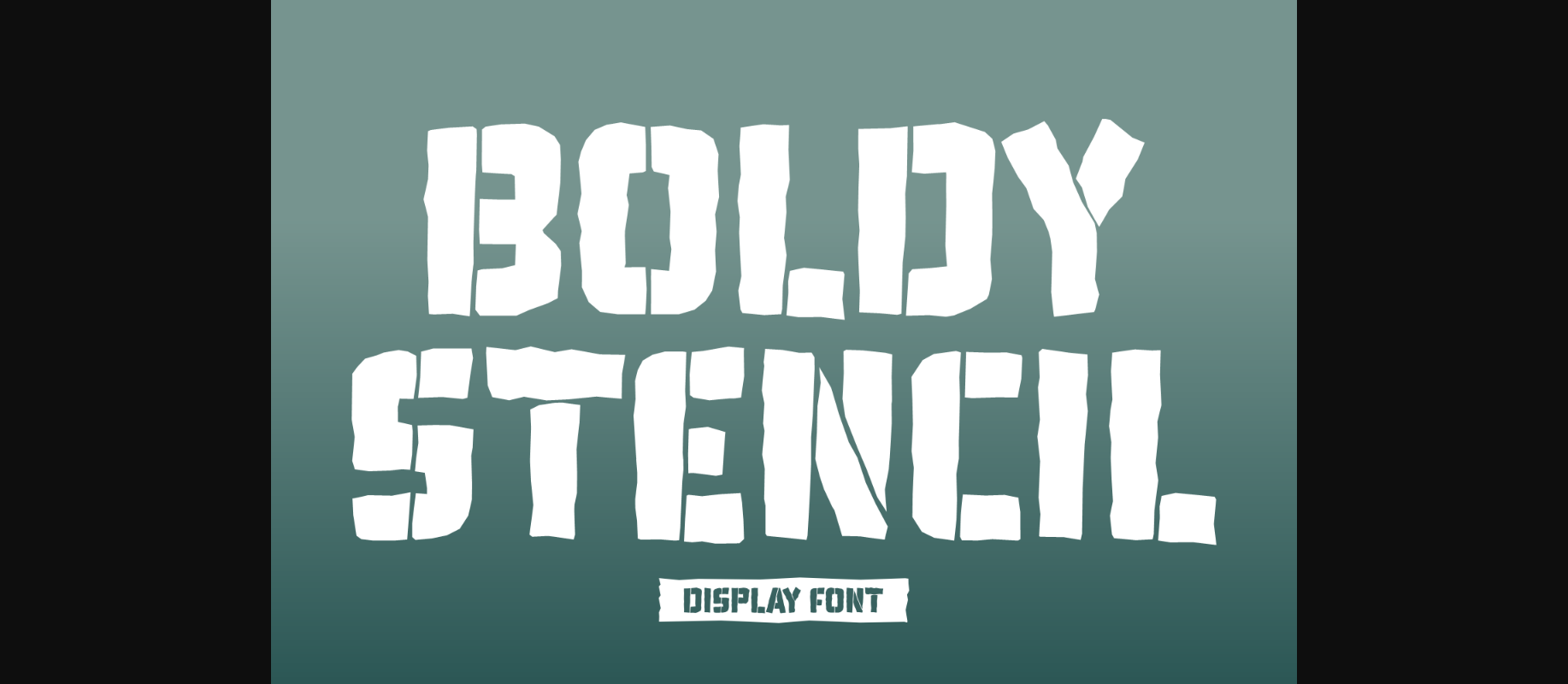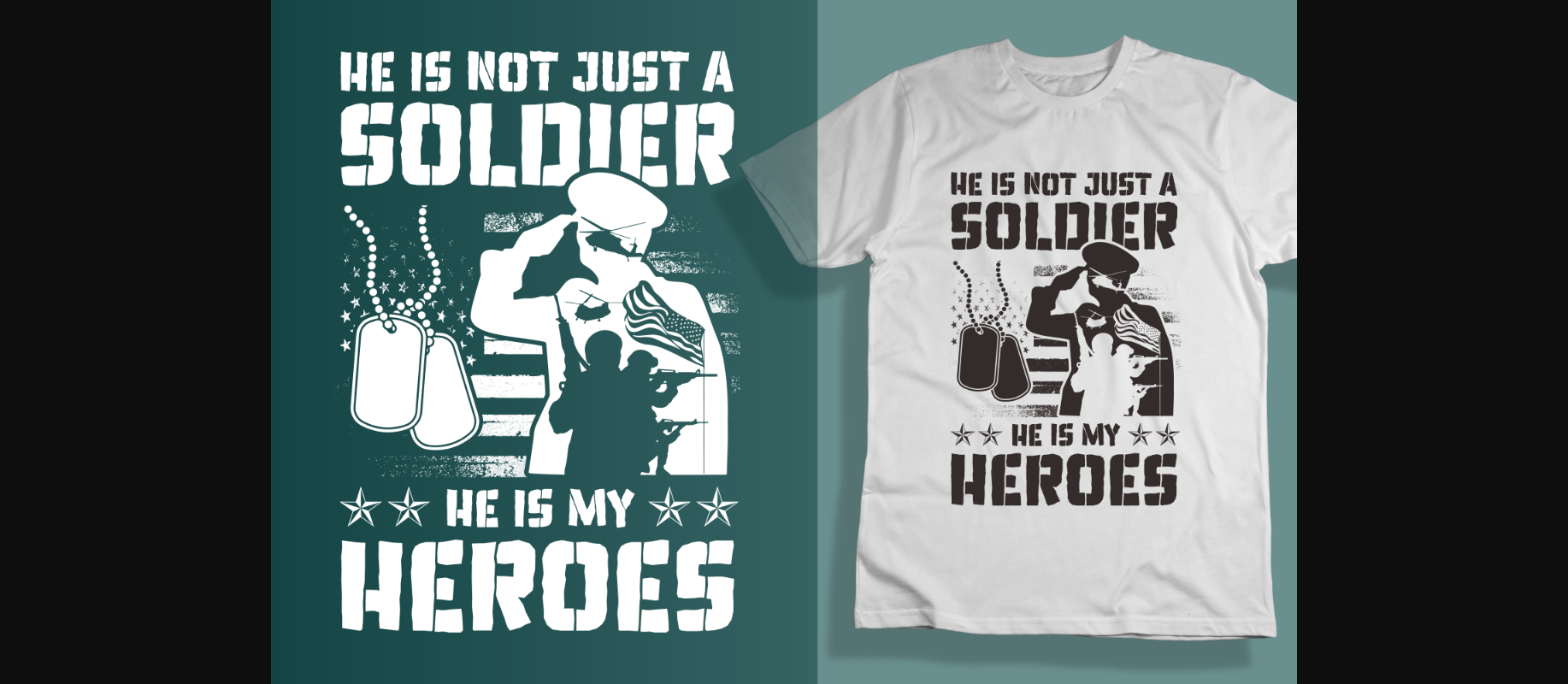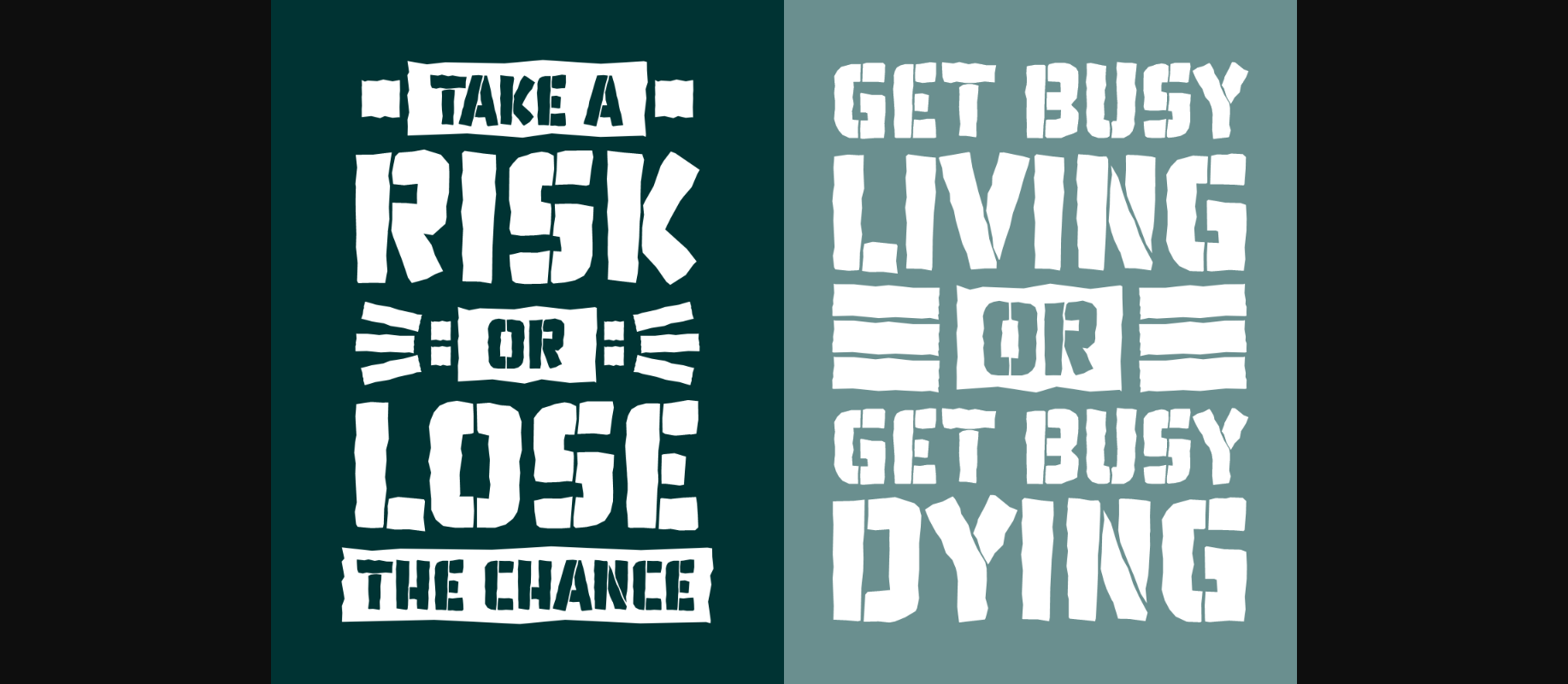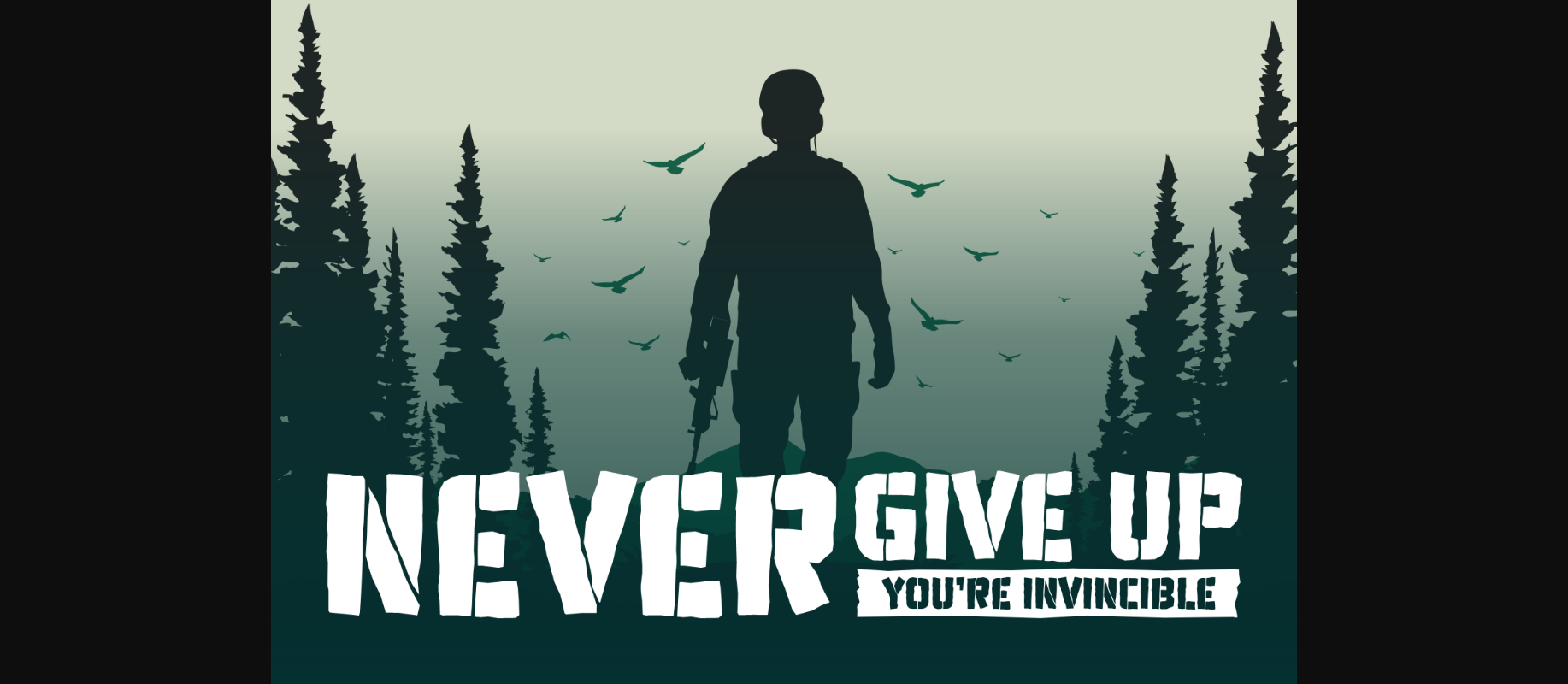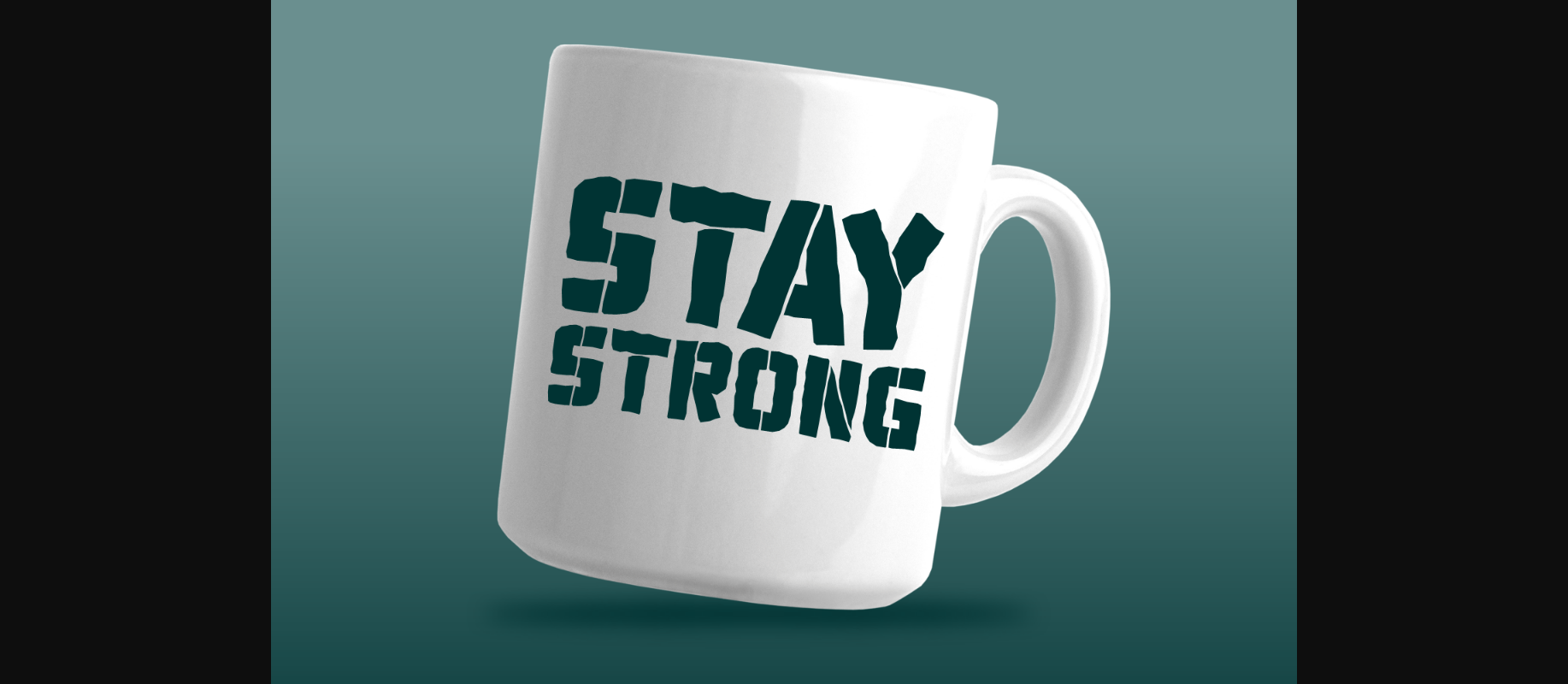
Boldy Stencil Font
Boldy Stencil is a strong and eye-catching display font. Its bold and clear-cut design makes a powerful statement, perfect for grabbing attention in headers, titles, or logos. The stencil style adds a touch of modernity, giving your text a distinctive and memorable appearance. Whether you’re working on branding, posters, or any design that demands impact, Boldy Stencil delivers a bold and straightforward typographic solution with style.